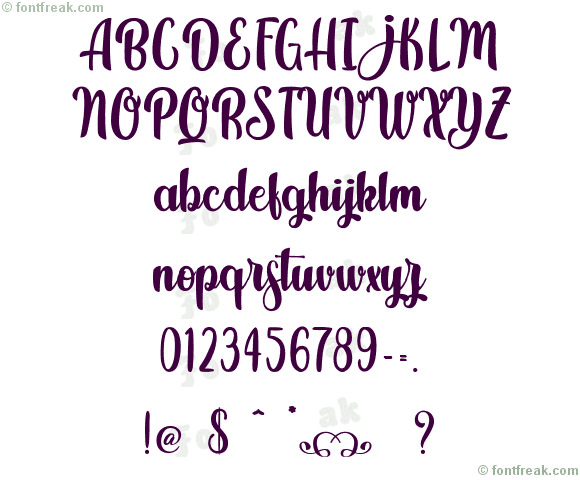
Kindly Jasmine
Kindly Jasmine — Character Map
About Kindly Jasmine
Kindly Jasmine is an elegant script font designed by Suthi Srisopha, classified as a handwritten typeface. This font is characterized by its fluid strokes and graceful curves that exude a warm, inviting atmosphere. The stroke weight offers a nice balance between boldness and delicacy, while the contrast between thick and thin lines adds visual interest. The spacing between the letters is well-considered, allowing for easy readability without sacrificing style. Decorative elements, such as gentle swirls and flourishes, enhance its charm and make it a perfect choice for various design projects.
This font is particularly well-suited for wedding invitations, where its romantic aesthetic can beautifully convey the essence of love and celebration. It also shines in greeting cards, adding a personal touch for birthdays or anniversaries. Additionally, restaurant menus can benefit from the inviting nature of Kindly Jasmine, making the dining experience feel more intimate. The font is equally effective for branding and logo design, especially for businesses in the creative and lifestyle sectors looking to establish a friendly and approachable identity.
What sets Kindly Jasmine apart is its ability to blend elegance and playfulness, making it versatile across various applications. Whether you’re designing a heartfelt invitation or a captivating logo, this font captures attention while conveying warmth and sophistication. Its unique character and charm ensure that it stands out in a crowded marketplace, making it an excellent addition to any designer's toolkit.